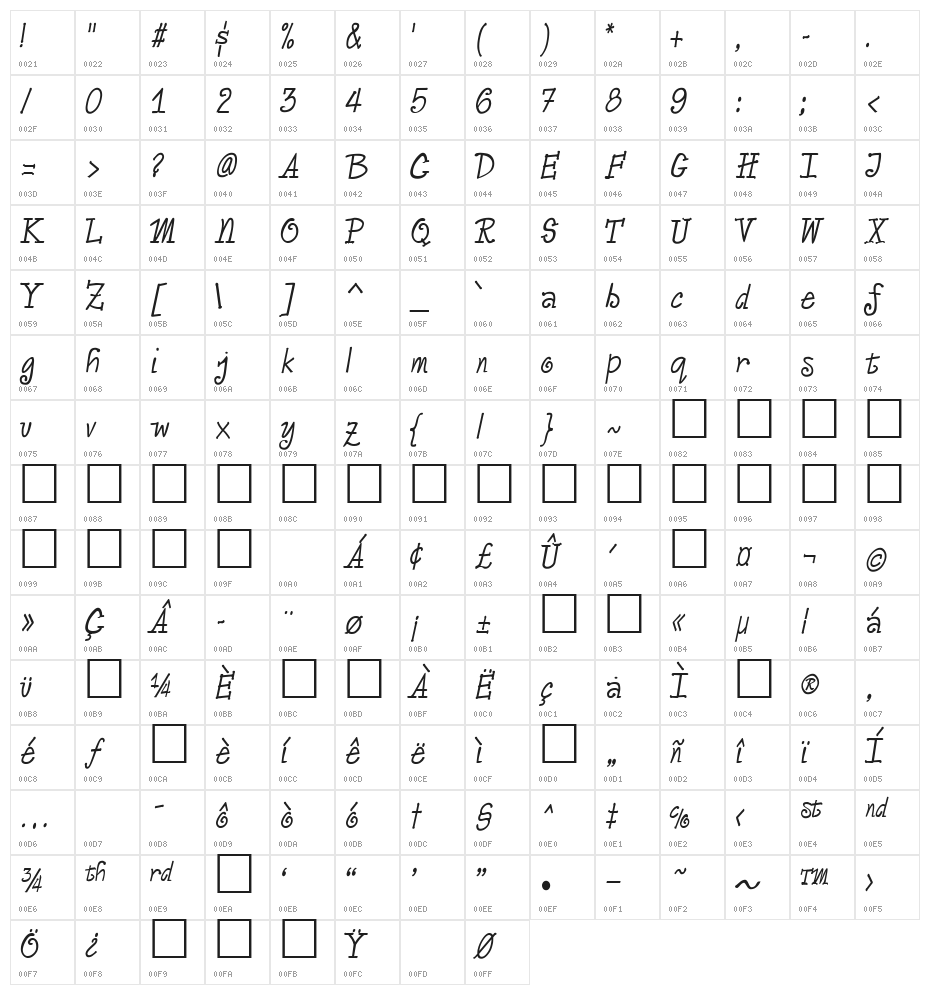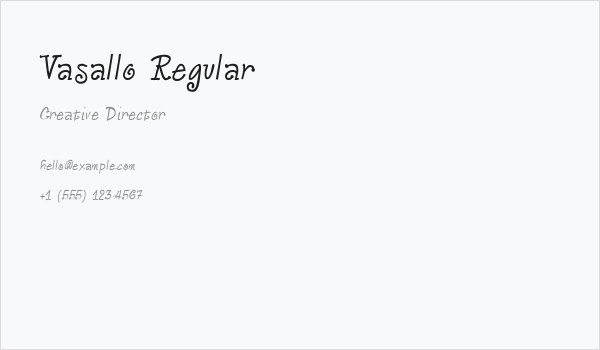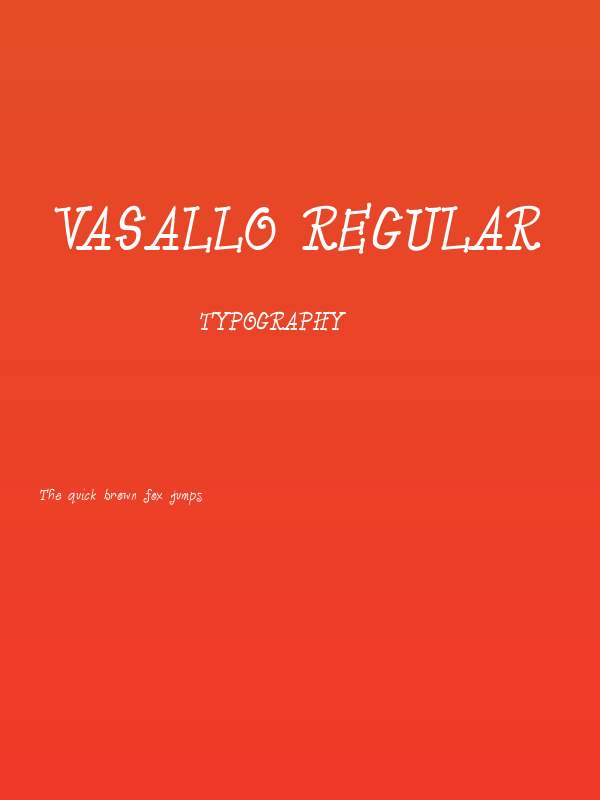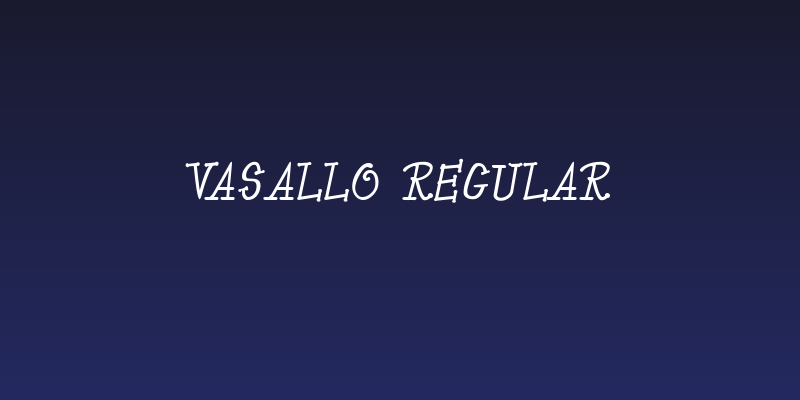
Vasallo Regular Font
Vasallo Regular Description
This font features a playful and dynamic handwritten style with a slight slant, giving it a casual and friendly appearance. The characters are well-defined with a consistent stroke width, providing a uniform look across both uppercase and lowercase letters. The numerals and special characters maintain the same lively style, making them easily readable. The font's design includes subtle curves and loops, adding a touch of elegance without compromising its legibility. It is versatile enough to be used in various design contexts, from informal invitations to creative branding projects.
| Overall Style | Casual |
| Use Case | Headlines, Logos, Invitations |
| Proposed Projects | Ideal for greeting cards, invitations, playful branding, and children's book covers. |